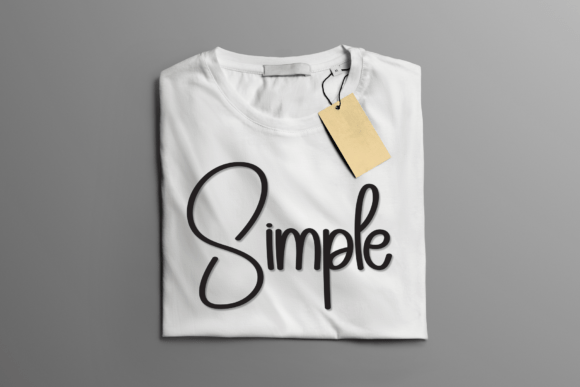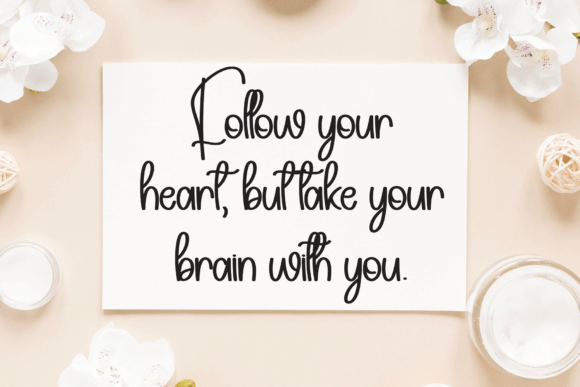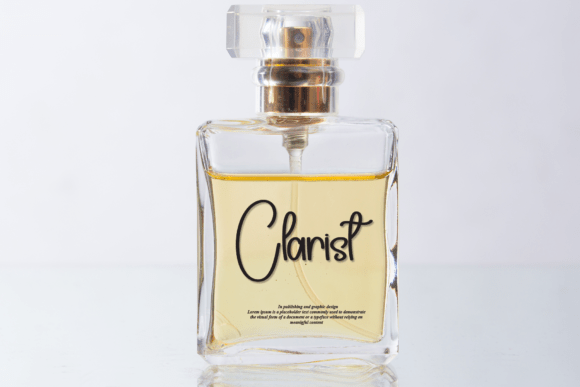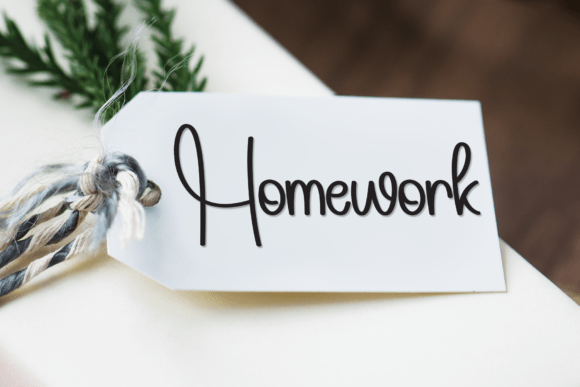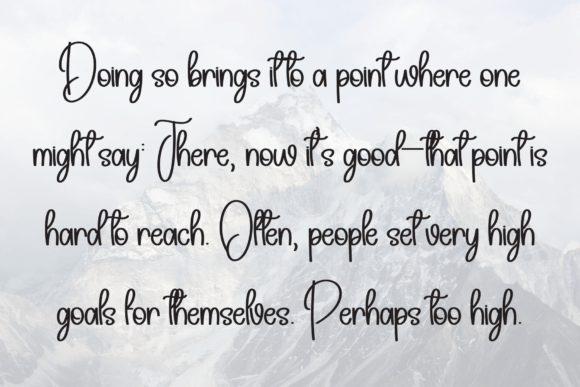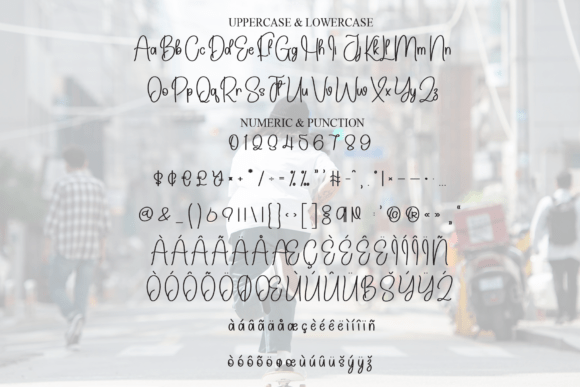
Discover the Delightful Charm of Downtown Chasing Font
In the world of typography, few fonts manage to capture the essence of warmth and friendliness as effectively as the Downtown Chasing Font. This handwritten display font is a gem that exudes sweetness and approachability in every line, making it an excellent choice for designers and crafters looking to add a personal touch to their projects. With its unique blend of adorability and refinement, Downtown Chasing Font has the power to transform any text into a visual treat that captivates and delights.
The Allure of Downtown Chasing Font
What sets Downtown Chasing Font apart is its inviting charm. This font isn’t just a collection of letters; it’s an expression of warmth and hospitality. Its whimsical design, characterized by flowing lines and gentle curves, gives any text a playful and friendly vibe. Whether you’re working on a wedding invitation, a card design, or any project that requires a touch of elegance and whimsy, Downtown Chasing Font is the perfect companion.
Ideal for Wedding Invitations and Card Designs
Wedding invitations and card designs are more than just pieces of paper; they’re expressions of love, joy, and celebration. Downtown Chasing Font understands this and brings a romantic and whimsical touch to your designs. Its elegant yet playful nature makes it ideal for:
- Wedding invitations that need a touch of romance and whimsy
- Birthday cards that require a friendly and festive feel
- Thank you cards that deserve a personal and heartfelt touch
Adding a Whimsical Touch to Your Designs
The true beauty of Downtown Chasing Font lies in its ability to turn any design into a masterpiece of playfulness and charm. Here are a few ways you can leverage this font to elevate your designs:
- Mix and Match: Combine Downtown Chasing Font with other fonts to create a unique and eye-catching design. The contrast between the whimsy of Downtown Chasing and a more formal font can add depth and interest to your project.
- Play with Colors: This font comes alive with color. Experiment with pastel shades, vibrant hues, or classic black and white to find the perfect palette that complements your design and the occasion.
- Embellish with Graphics: Enhance your text with floral patterns, geometric shapes, or illustrations. Downtown Chasing Font pairs beautifully with simple graphics, creating a cohesive and visually appealing design.
Why Designers and Crafters Love Downtown Chasing Font
Designers and crafters have fallen in love with Downtown Chasing Font for several reasons:
- Versatility: Despite its specific whimsical style, this font is surprisingly versatile. It can be used for a wide range of projects, from formal wedding invitations to casual greeting cards.
- Easy to Read: One of the key features of Downtown Chasing Font is its readability. Even at smaller sizes, it remains clear and legible, making it perfect for detailed designs.
- Unique Appeal: In a sea of standard fonts, Downtown Chasing Font offers a unique appeal that can make your designs stand out. Its distinctive style ensures that your project will be remembered.
Downtown Chasing Font is more than just a font; it’s a design experience. Its inviting charm, whimsical nature, and versatility make it an invaluable tool for designers and crafters. Whether you’re creating a wedding invitation, a card, or any project that requires a touch of sweetness and friendliness, Downtown Chasing Font is sure to deliver. Dive into the world of whimsical typography and let Downtown Chasing Font transform your designs into captivating masterpieces of playfulness and charm.